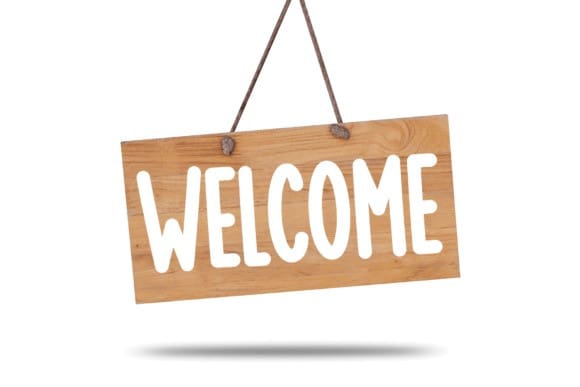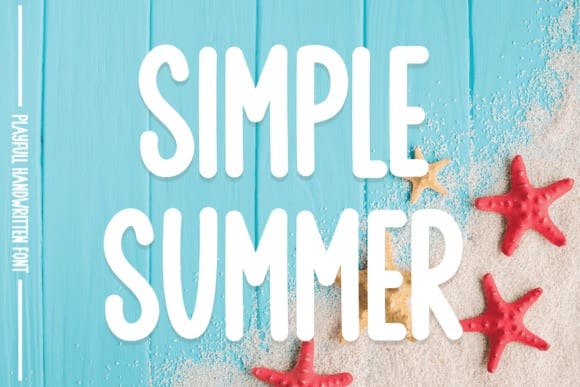
Simple Summer Font
Simple Summer Font is a bold, all-caps display font featuring the perfect amount of trendiness. Whether you’re using it for crafting, digital designing, presentations, or greeting card making, it’s perfect!